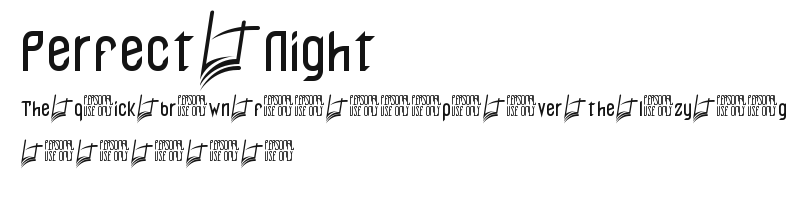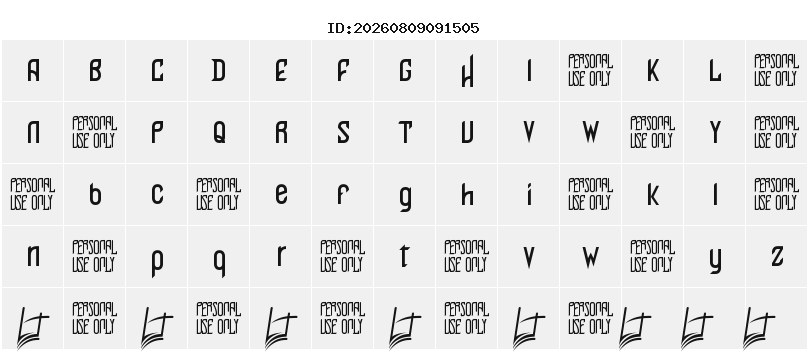
• Font Name: Perfect Night
• Font Style: tiny
• Designer: Luis Jaramillo
• Manufacturer: LJ Design Studios
About Perfect Night.ttf
Perfect Night.ttf is a modern, elegant sans-serif font designed for ultimate readability and visual harmony. Perfect for branding, headlines, web design, and print materials.